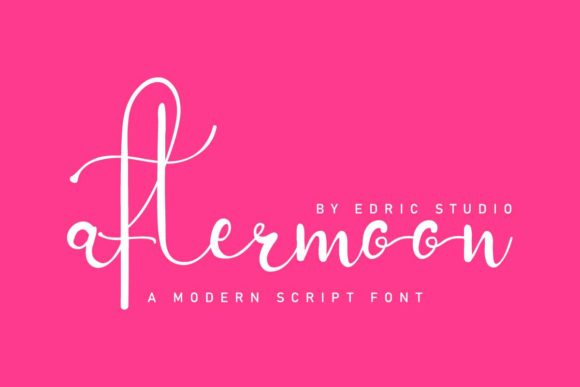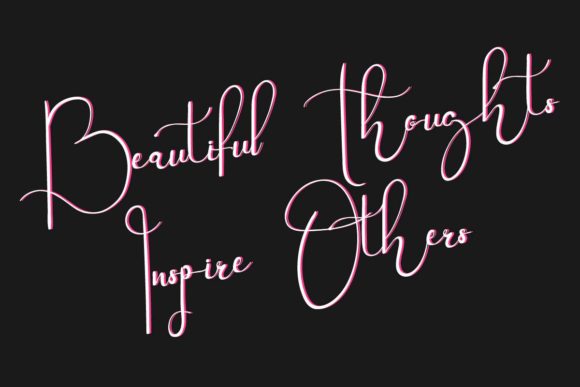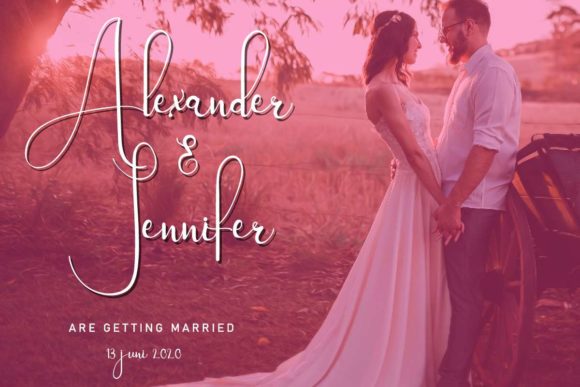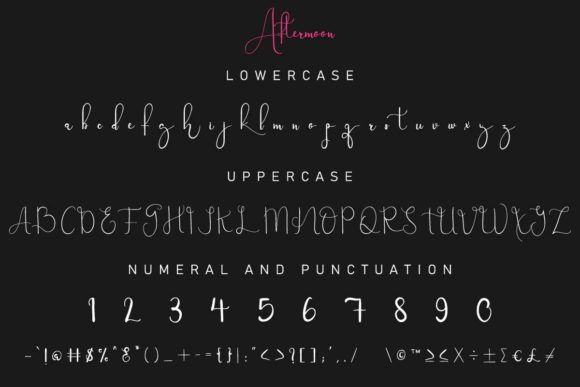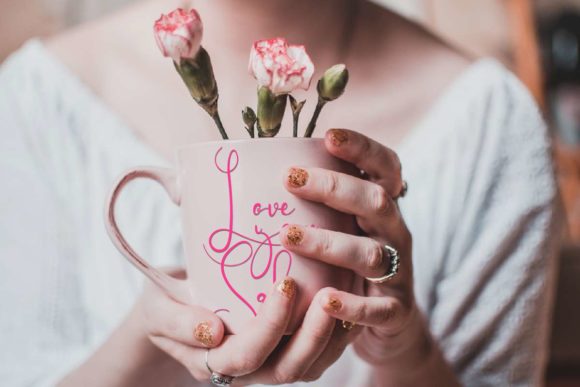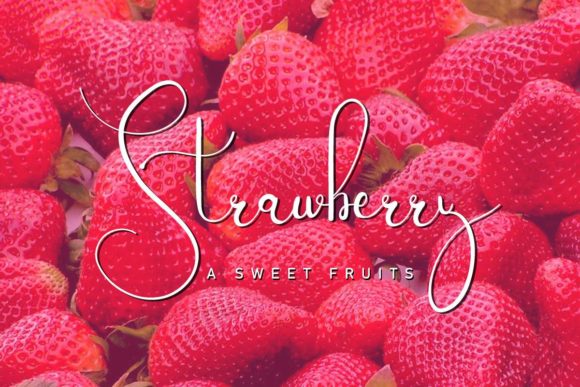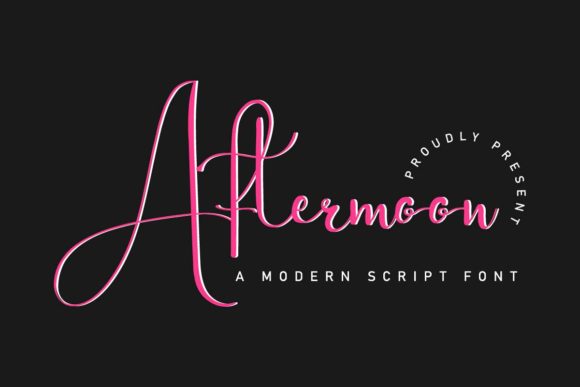
The Magic of Aftermoon Font: Elevate Your Designs with Elegance
I’ll never forget the moment I stumbled upon the perfect font for a client’s wedding invitation project. I had been searching for hours, trying out different fonts, but nothing seemed to fit the elegant and whimsical vibe I was going for. That’s when I discovered Aftermoon Font – a beautiful, elegant handwritten font that instantly captured the essence of the project. In this article, I’ll share my experience with Aftermoon Font, its features, and how to make the most of it in your designs.
A Personal Review of Aftermoon Font
As a designer, I’m always on the lookout for fonts that can elevate my projects and make them stand out. Aftermoon Font has become one of my go-to fonts, and here’s why:
- ✨ Elegant and sophisticated: Aftermoon Font has a unique, hand-crafted feel that adds a touch of elegance to any design.
- ✅ Highly versatile: Whether you’re working on a logo, invitation, or social media post, Aftermoon Font adapts seamlessly to different contexts.
- 💫 Beautifully crafted: The font’s attention to detail and beautiful letterforms make it a joy to work with.
Of course, no font is perfect, and Aftermoon Font has a few quirks:
- 🤔 Limited character set: While Aftermoon Font has a wide range of characters, it may not have every special character or glyph you need.
- ⚠️ May require manual kerning: Depending on the design, you may need to adjust the kerning to get the perfect spacing.
- Experiment with OpenType features, such as stylistic alternates, to add variety to your design.
- Explore the font’s glyphs and OpenType features, such as ligatures and swashes, to add depth to your design.
The Story Behind Aftermoon Font
Imagine a designer, sitting by the moonlight, carefully crafting each letterform to create a beautiful, elegant font. That’s the story behind Aftermoon Font. Inspired by the magic of the night, the designer poured their heart and soul into creating a font that’s both refined and whimsical.
| Font Name | Aftermoon Font |
| Author | EdricStudio |
| What is Aftermoon Font best used for? | Aftermoon Font is perfect for designs that require an elegant, sophisticated touch, such as wedding invitations, logos, and social media posts. |
| Is Aftermoon Font suitable for body text? | While Aftermoon Font is beautiful, it’s best used for headings and titles. For body text, a clearer font may be more suitable. |
| Does Aftermoon Font have any special features? | Yes, Aftermoon Font has a range of OpenType features, including stylistic alternates, ligatures, and swashes. |